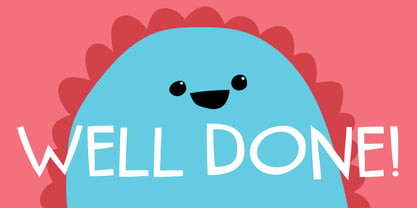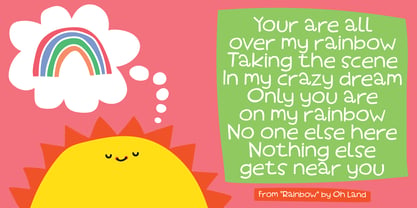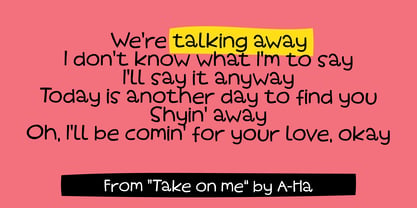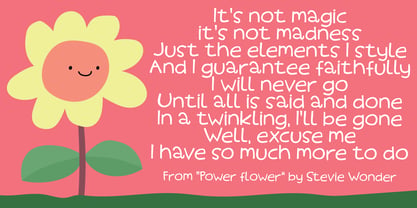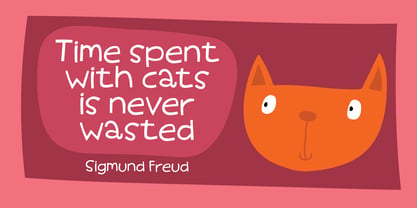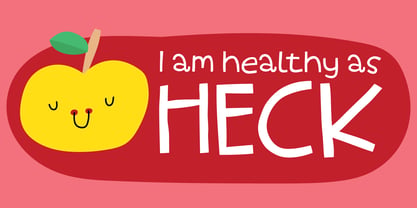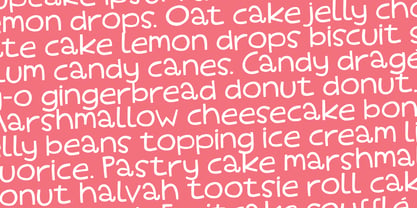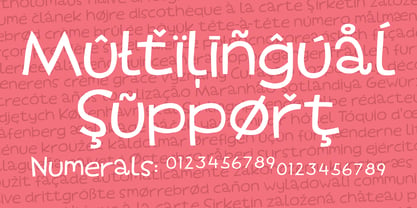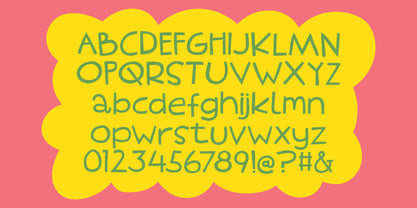
Talking Away
by Bogstav
The Talking Away Font Family was designed by Jakob Fischer and published by Bogstav. Talking Away contains 2 styles and family package options. More about this family
Talking Away is my newest organic handmade comic / craft font. Use this beauty for your next design that needs that friendly and happy look - and of course, with an obvious twist of slightly uneven lines, leaving behind a beautiful handmade look. Just type and make the jumpy letters do the work, or type in ALL CAPS - in both cases, things just look really good! :)
Romantic and kind of funky - just like that A-Ha song that made basis for the name!